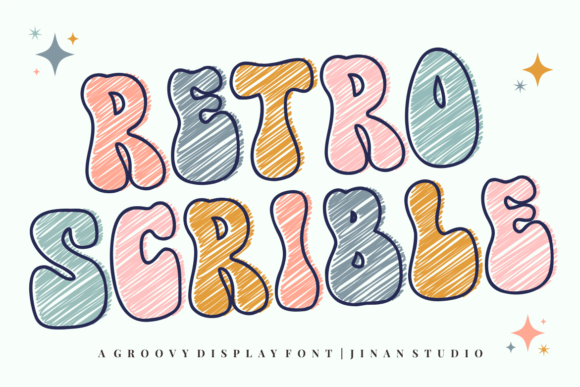
Looking for a font that will make your creations stand out? Look no further than Retro Scrible Font! This groovy display font, created by jinanstd, is the perfect addition to any project, whether you're designing greeting cards, headlines, stickers, or anything in between.
With its unique retro-inspired style, Retro Scrible Font is sure to catch the eye of anyone who sees it. But it's not just about looking cool - this font is also incredibly versatile, making it a great choice for all kinds of projects. Whether you're designing a funky poster for your band's next gig or creating a beautiful wedding invitation, Retro Scrible Font is the perfect way to add a touch of personality and style.
One of the best things about Retro Scrible Font is how easy it is to use. The clean lines and simple shapes make it a breeze to read, no matter what size you choose. Plus, with its wide range of glyphs and characters, you can customize your design to make it truly your own.